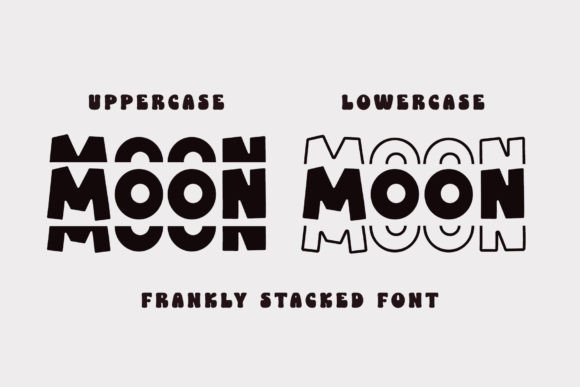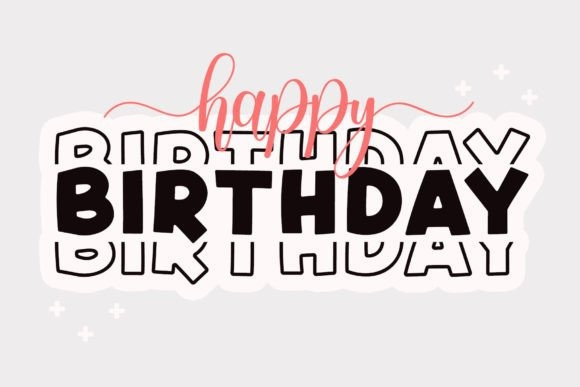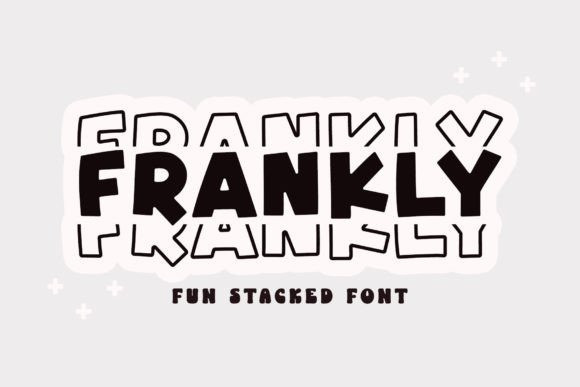
Frankly Font
Frankly Font is a display stacked font with a bold and cute style.It is the perfect font for any crafting project, such as posters, t-shirt quotes, mugs, stickers, sublimation, and many more.